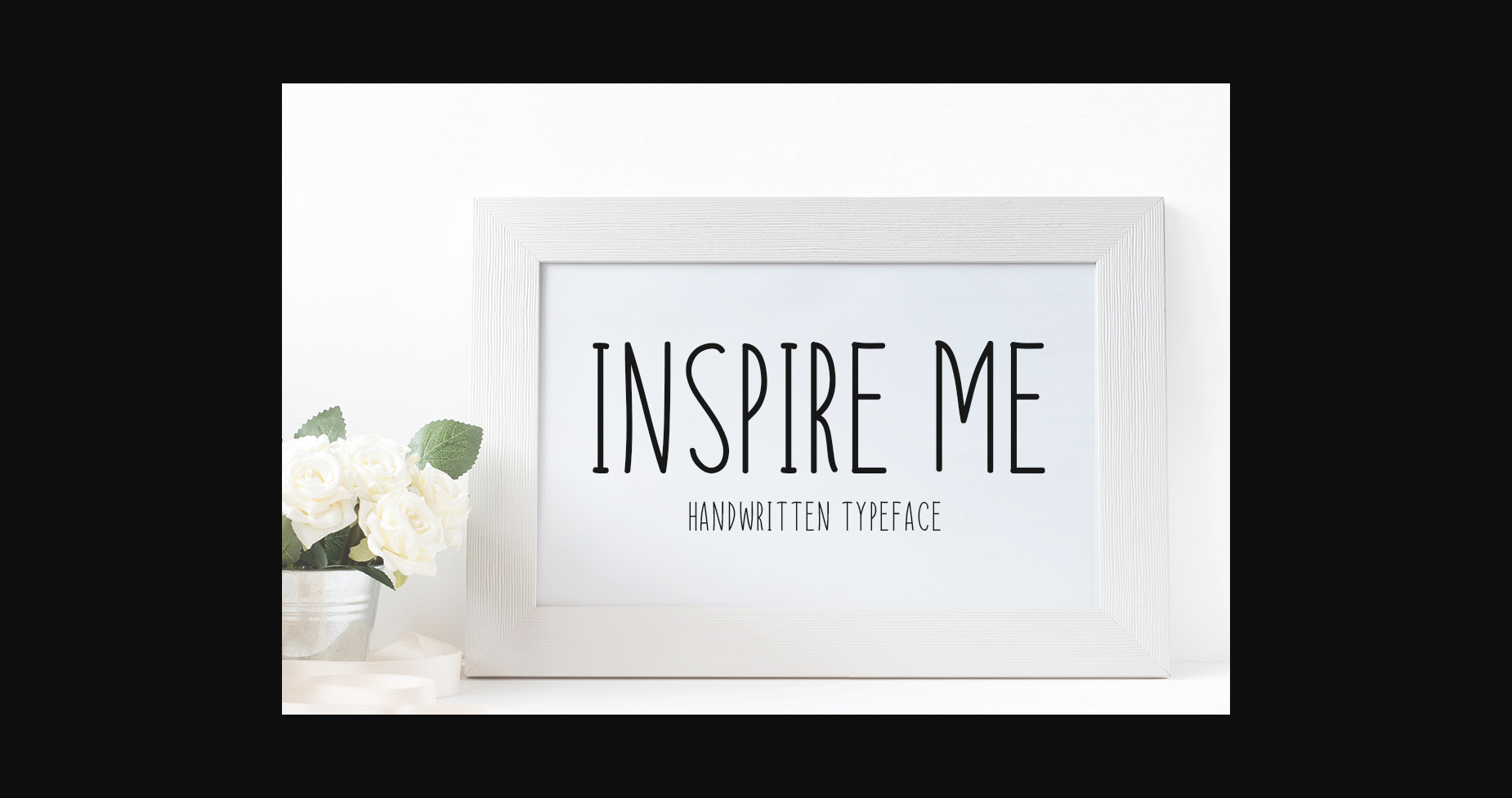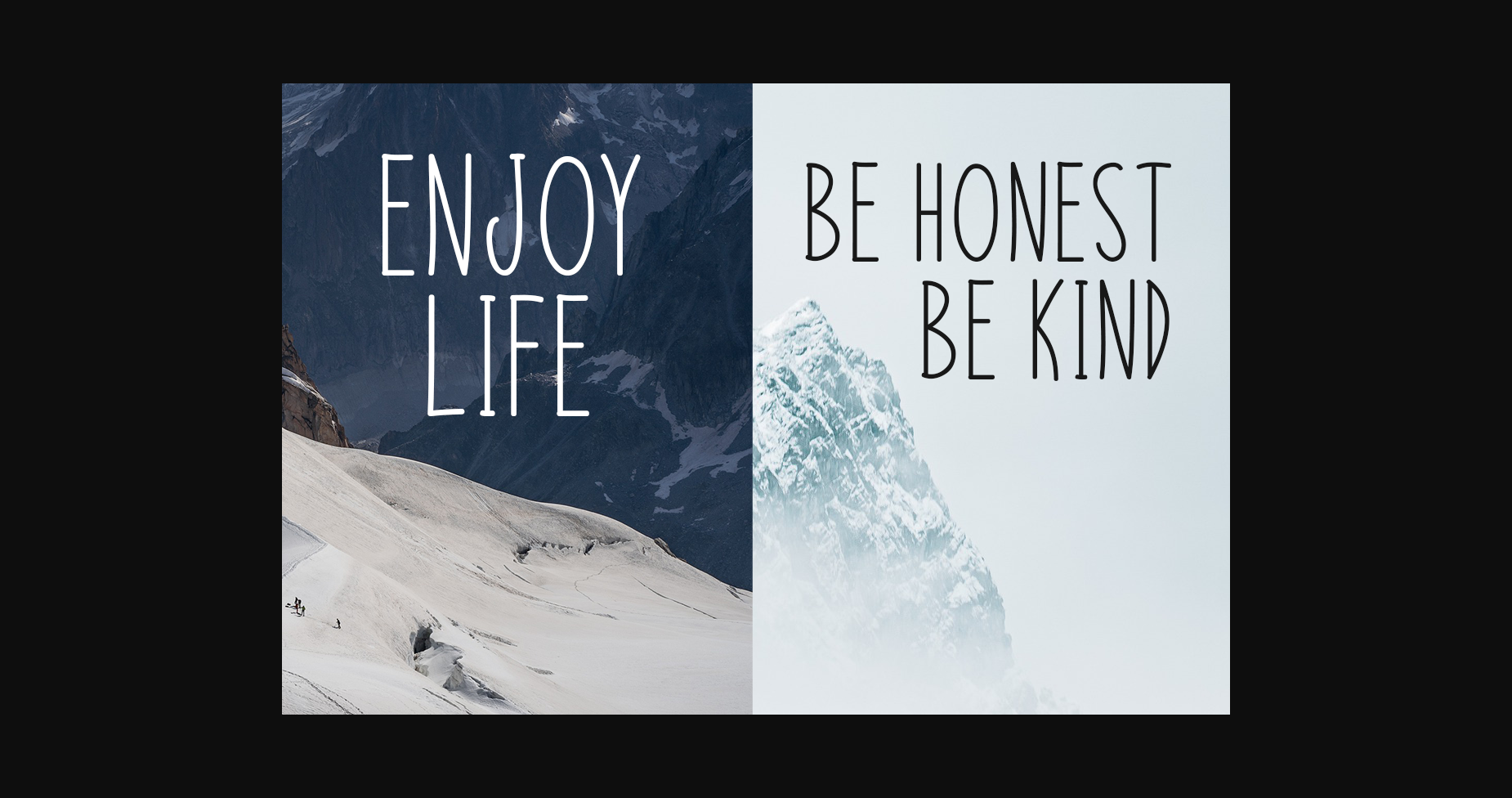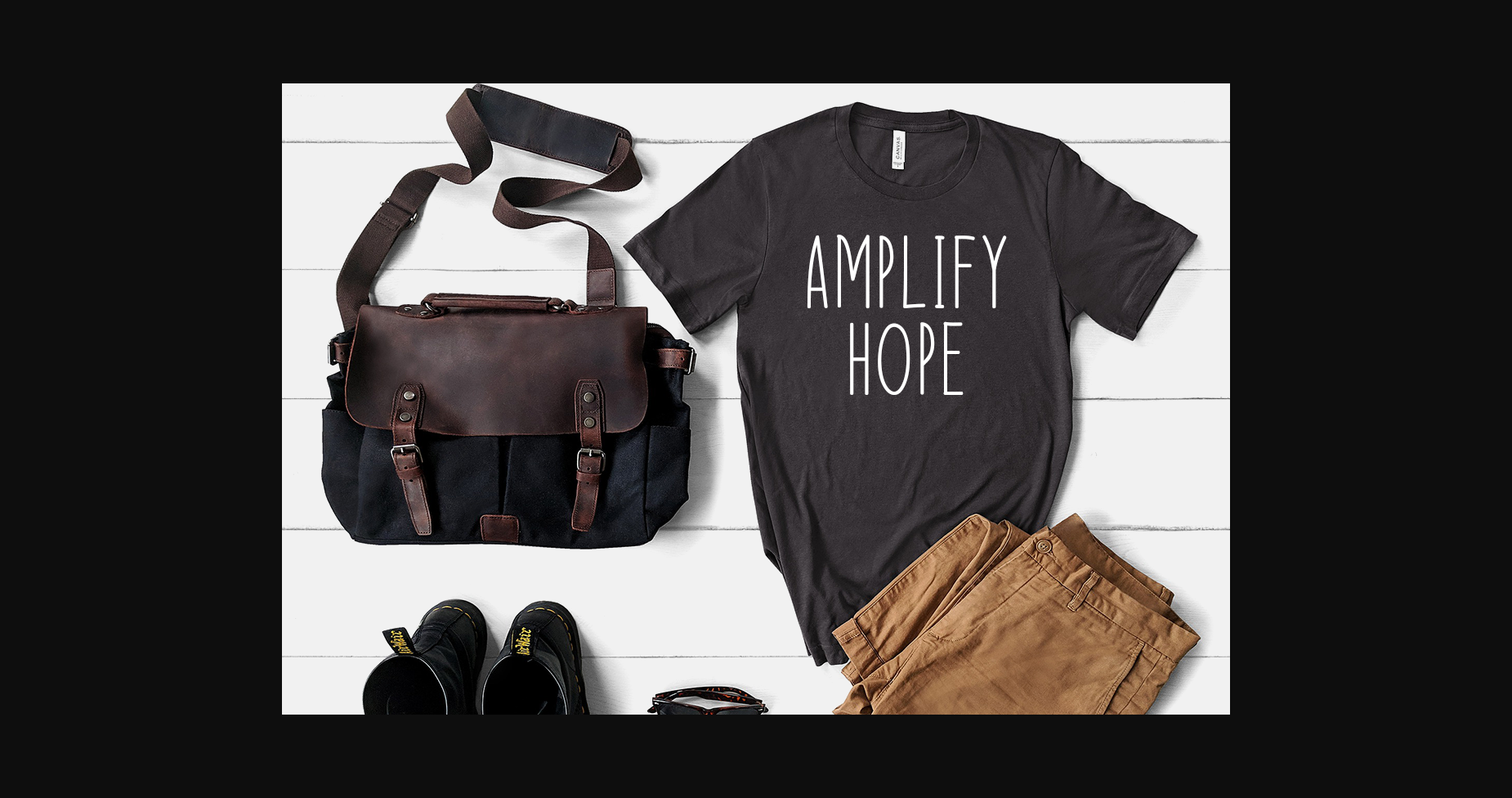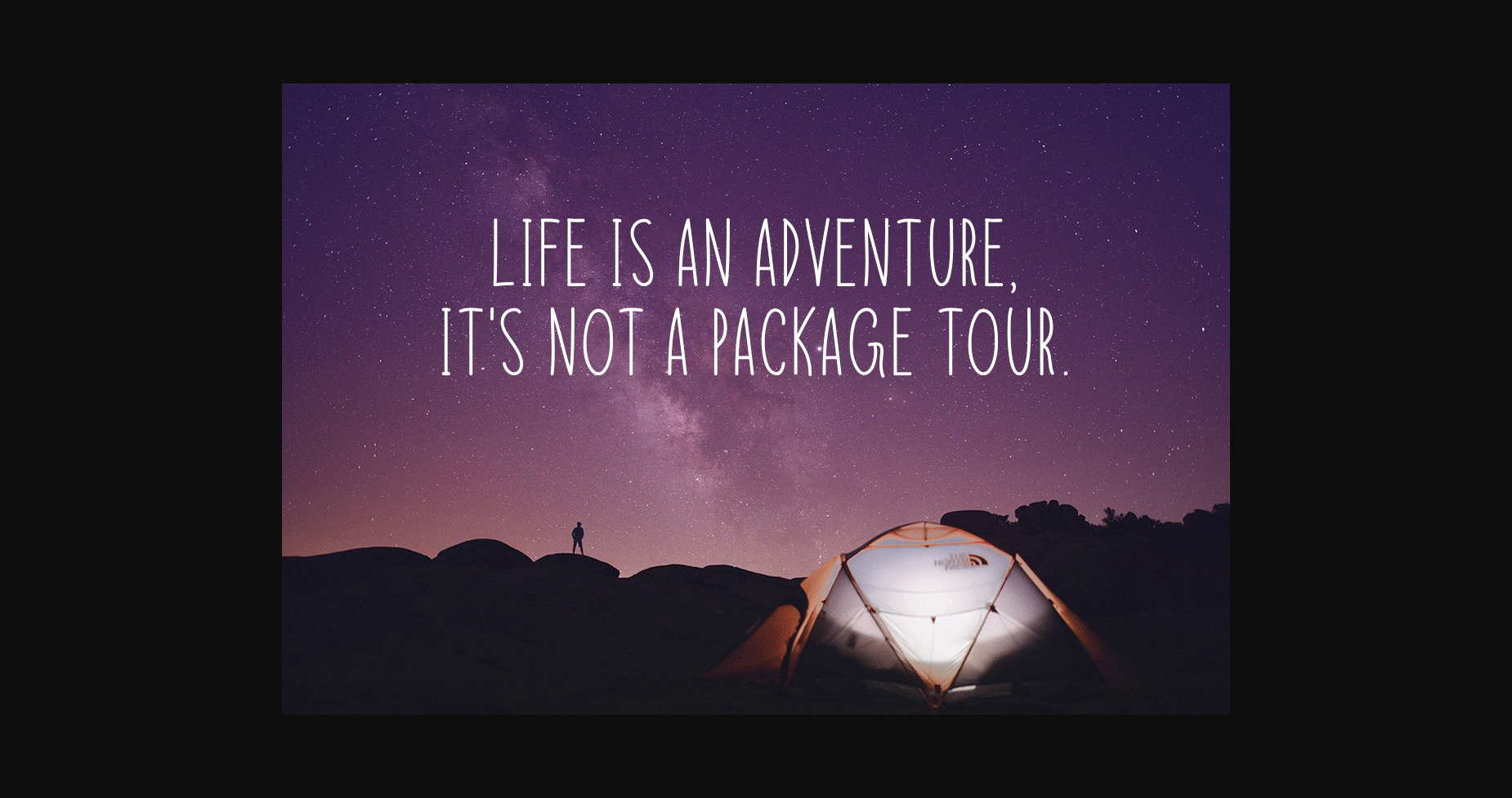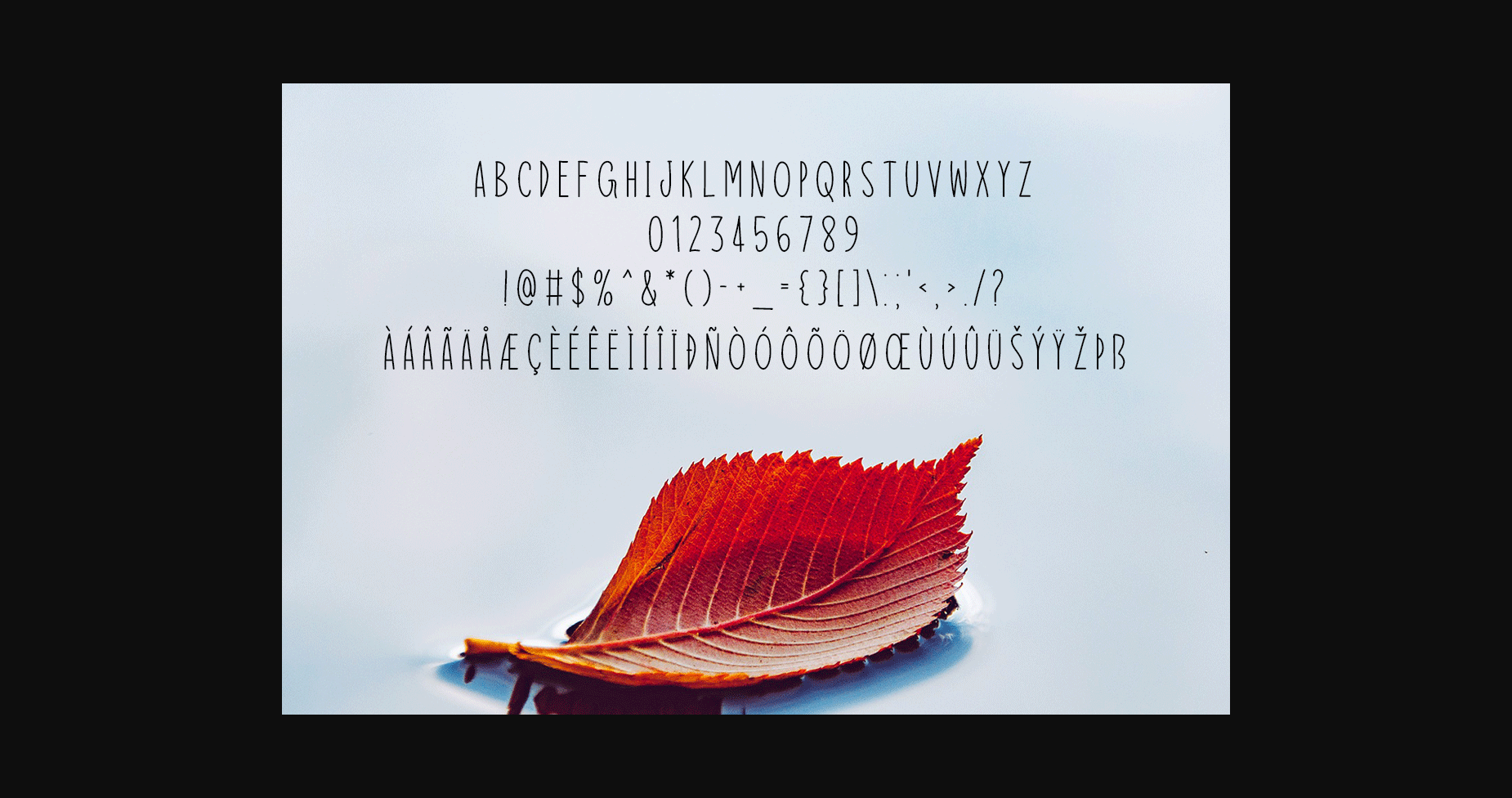
Inspire Me Font
About Inspire Me Font
Inspire Me is a clean and thin lettered sans serif font, that can be used for all chalkboard quotes or teaching material! Its authentic look will add a personal and realistic feel to your designs.